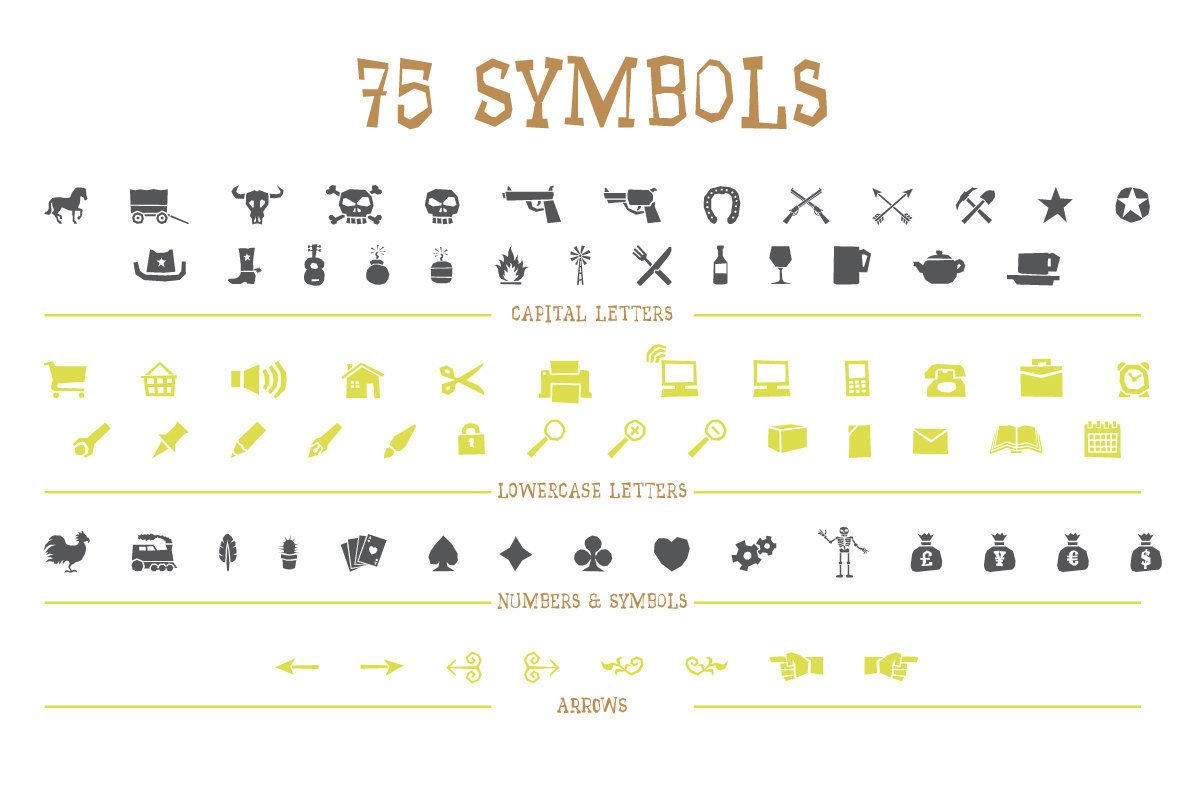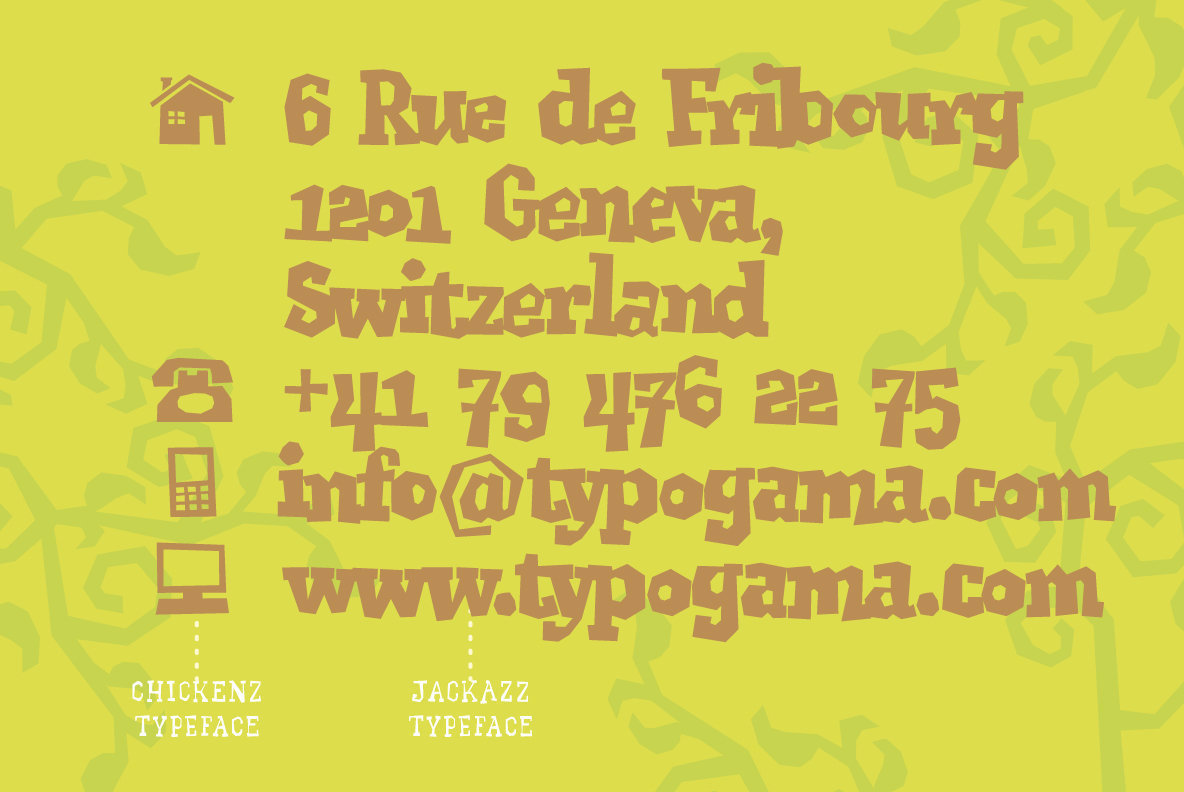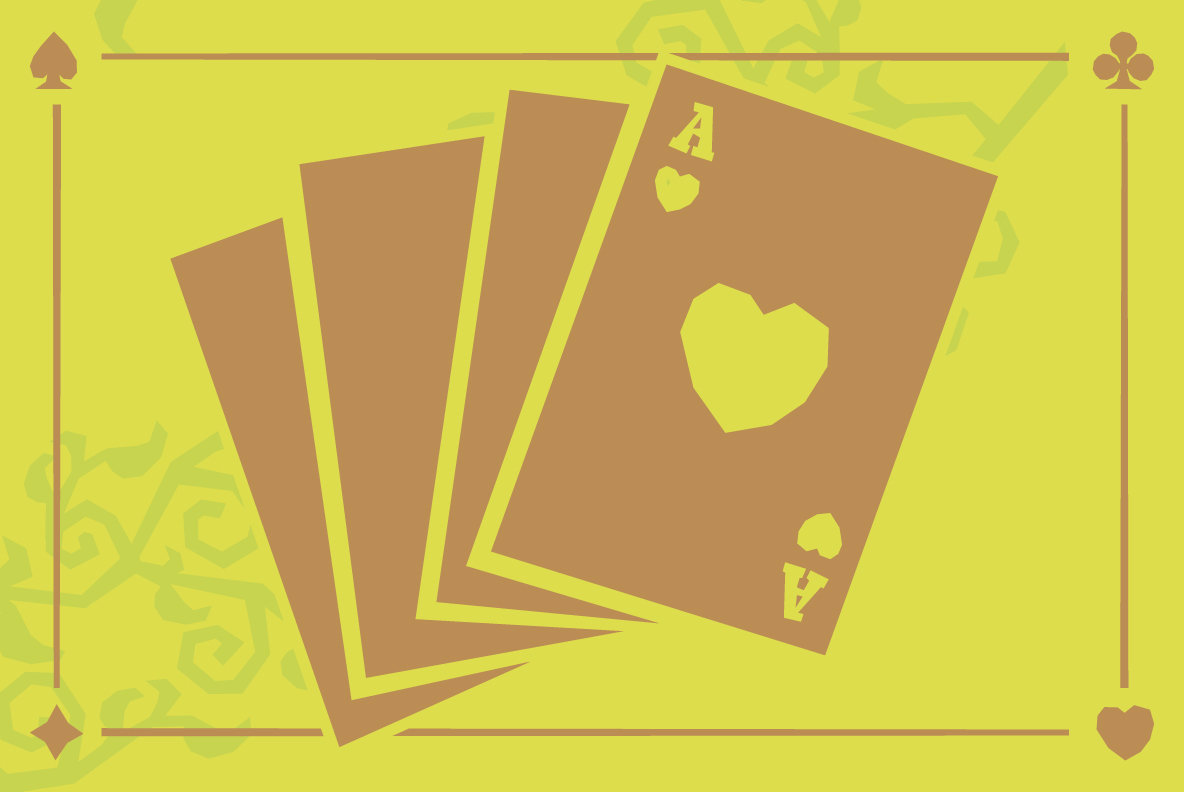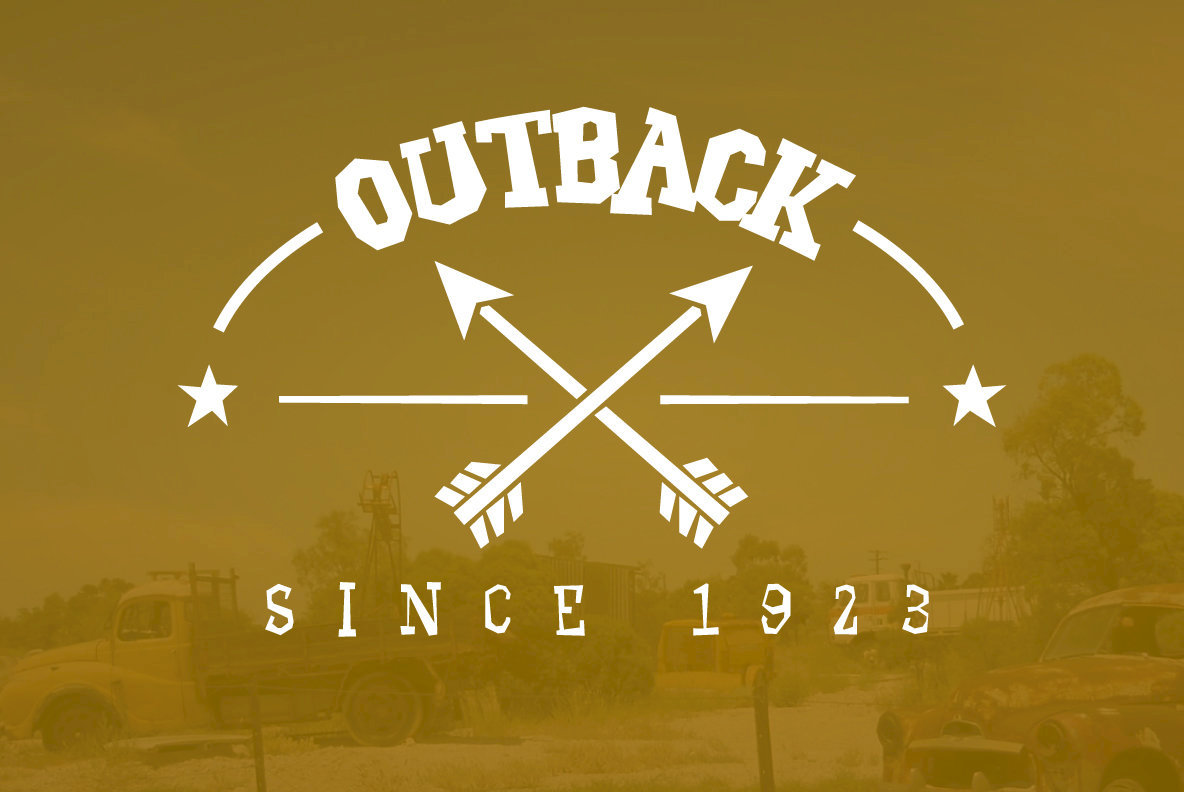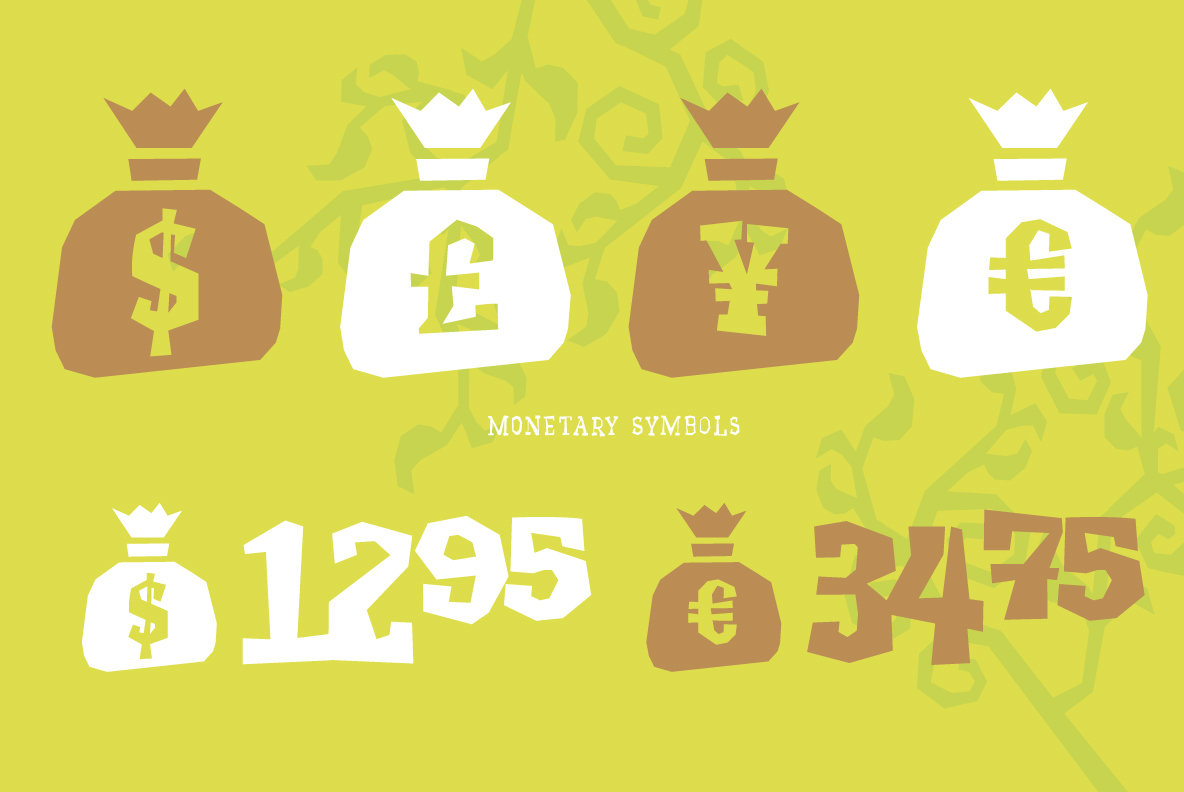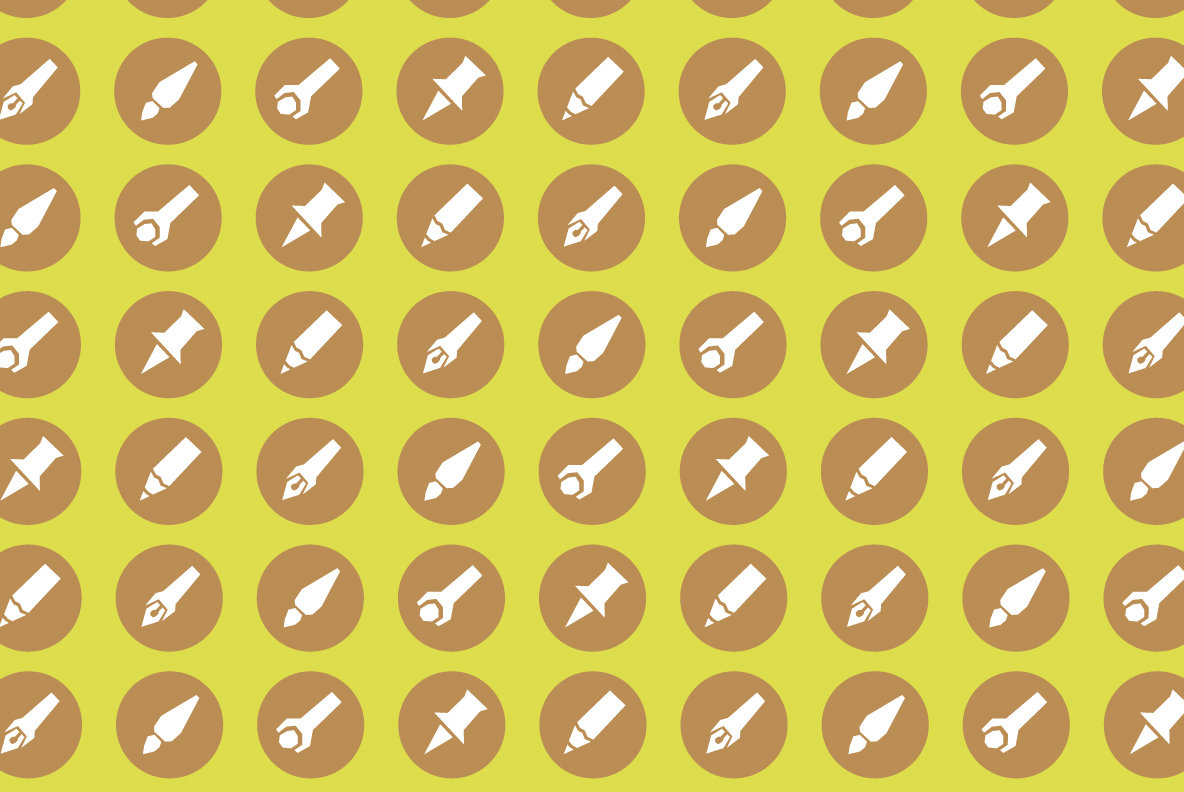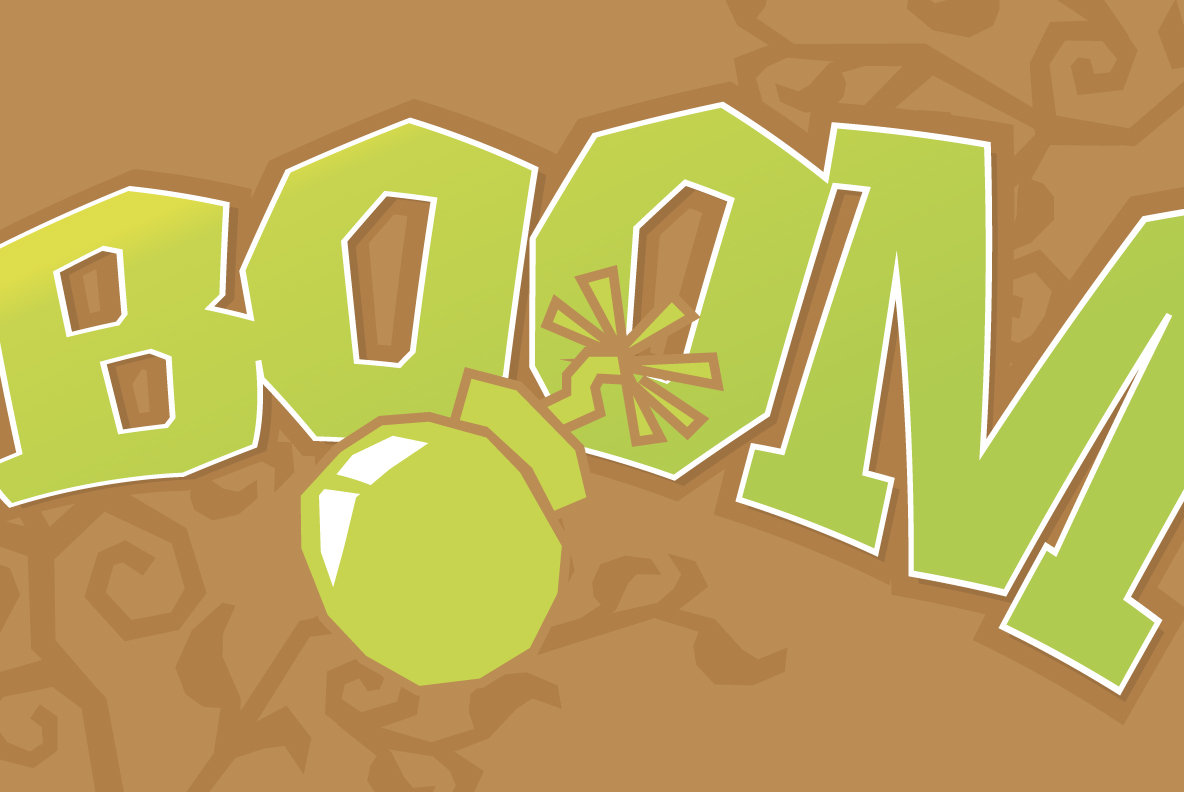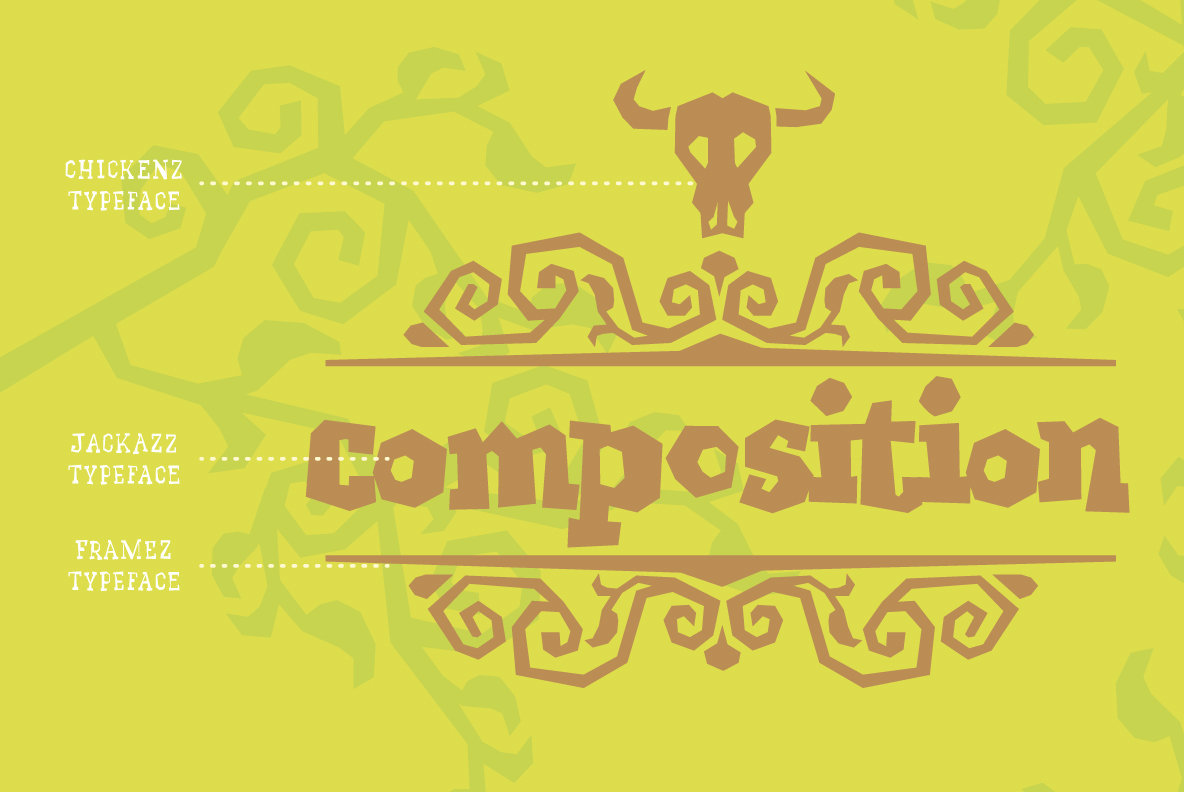
Chickenz Font
Chickenz Regular
The Chickenz dingbat font is a series of symbols based inspired by the wild west, from cowboy silhouettes and playing cards to a series of office shapes that can be used in any corporate layout.